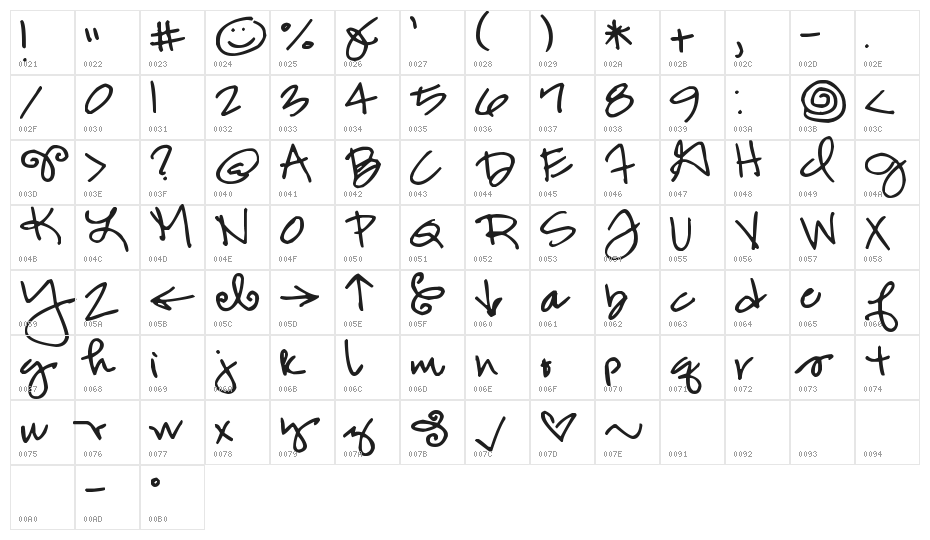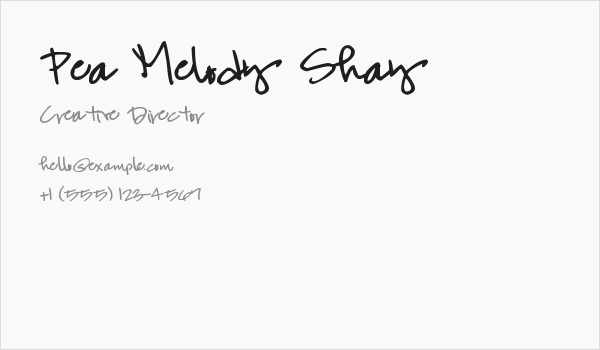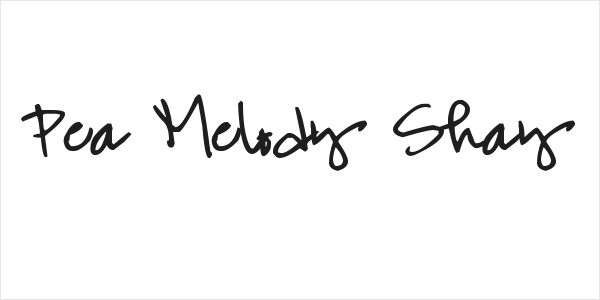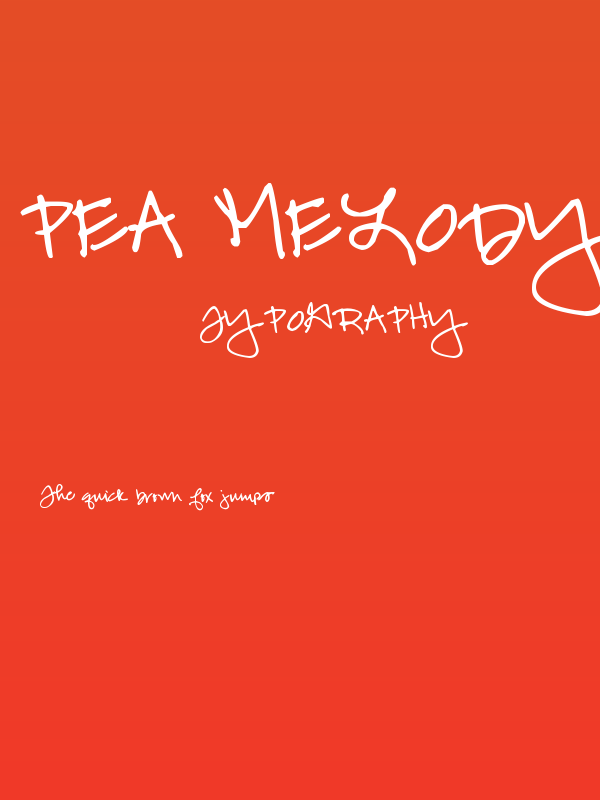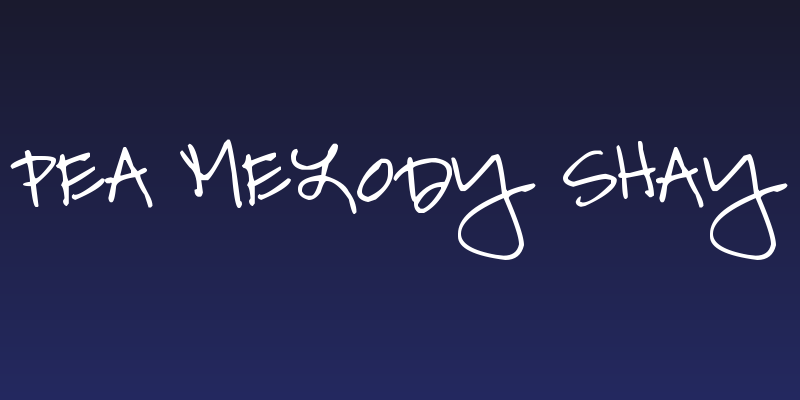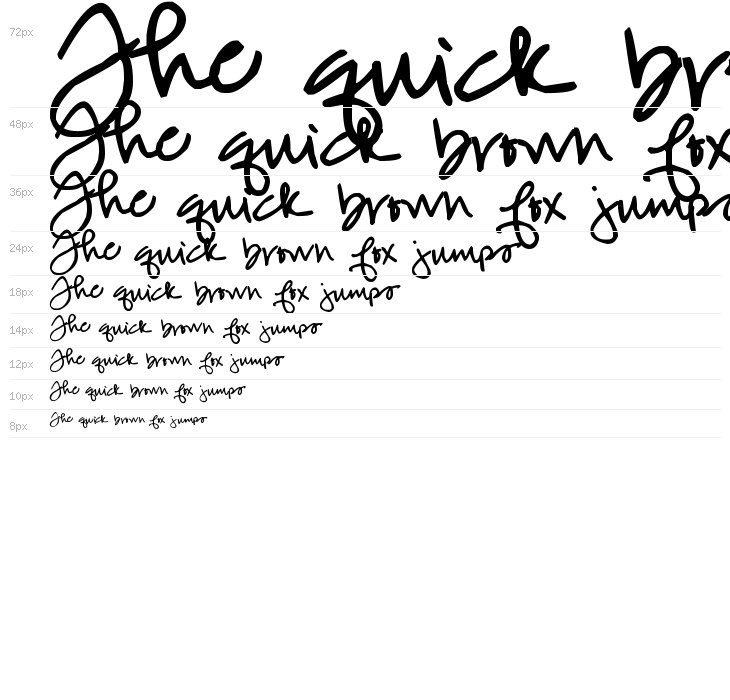
Pea Melody Shay Font
Pea Melody Shay Description
This font features a playful and casual handwritten style, characterized by its fluid and dynamic strokes. The letters are slightly slanted, giving it a natural and spontaneous appearance. The uppercase and lowercase letters are well-balanced, with a consistent flow that mimics natural handwriting. The numbers and special characters maintain the same lively and informal feel, making it suitable for projects that require a personal touch. The overall design is approachable and friendly, perfect for conveying warmth and creativity.
| Use Case | Logos, Headlines, Informal Invitations |
| Proposed Projects | Ideal for greeting cards, personal branding, social media graphics, and creative projects that require a personal touch. |